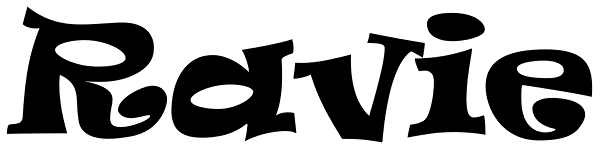
Ravie
Rave v. To talk wildly, as in a delirium; to talk or write with extravagant enthusiasm; to utter as if in madness. This wildly delirious, extravagantly enthusiastic, utterly mad typeface was drawn by Ken O'Brien in 1993-94 while attending the Art...